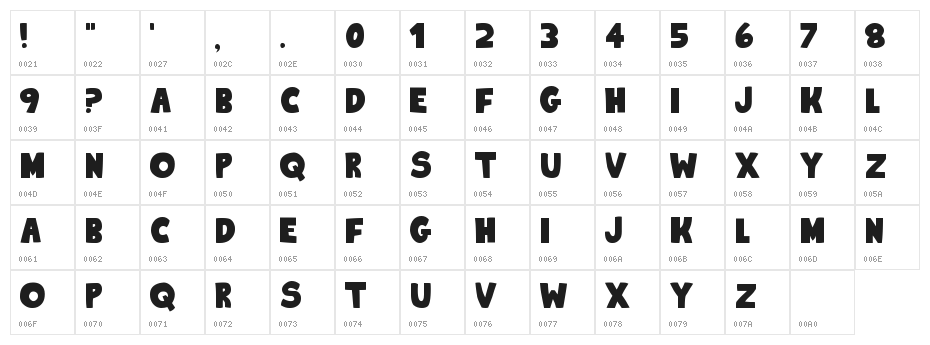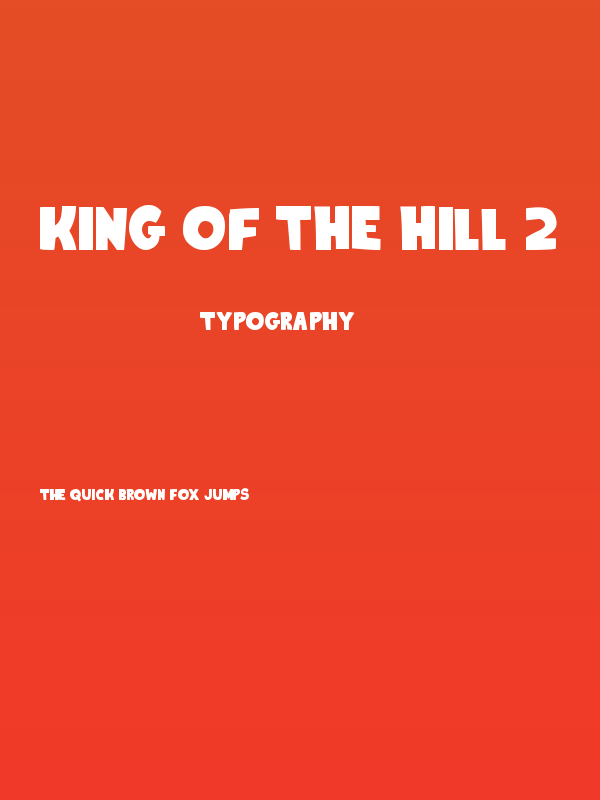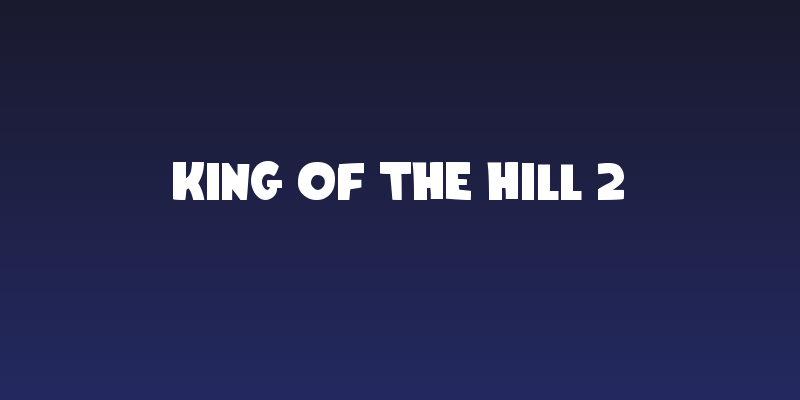
King Of The Hill 2 Font
King Of The Hill 2 Description
This font features bold, playful characters with a slightly irregular and whimsical style. The letters are thick and rounded, giving them a friendly and approachable appearance. The uppercase and lowercase letters are consistent in their boldness, with a slight variation in the curves and angles that adds a touch of uniqueness. The numbers are equally bold, maintaining the same playful aesthetic. The special characters are designed to match the overall style, ensuring a cohesive look across all text elements.